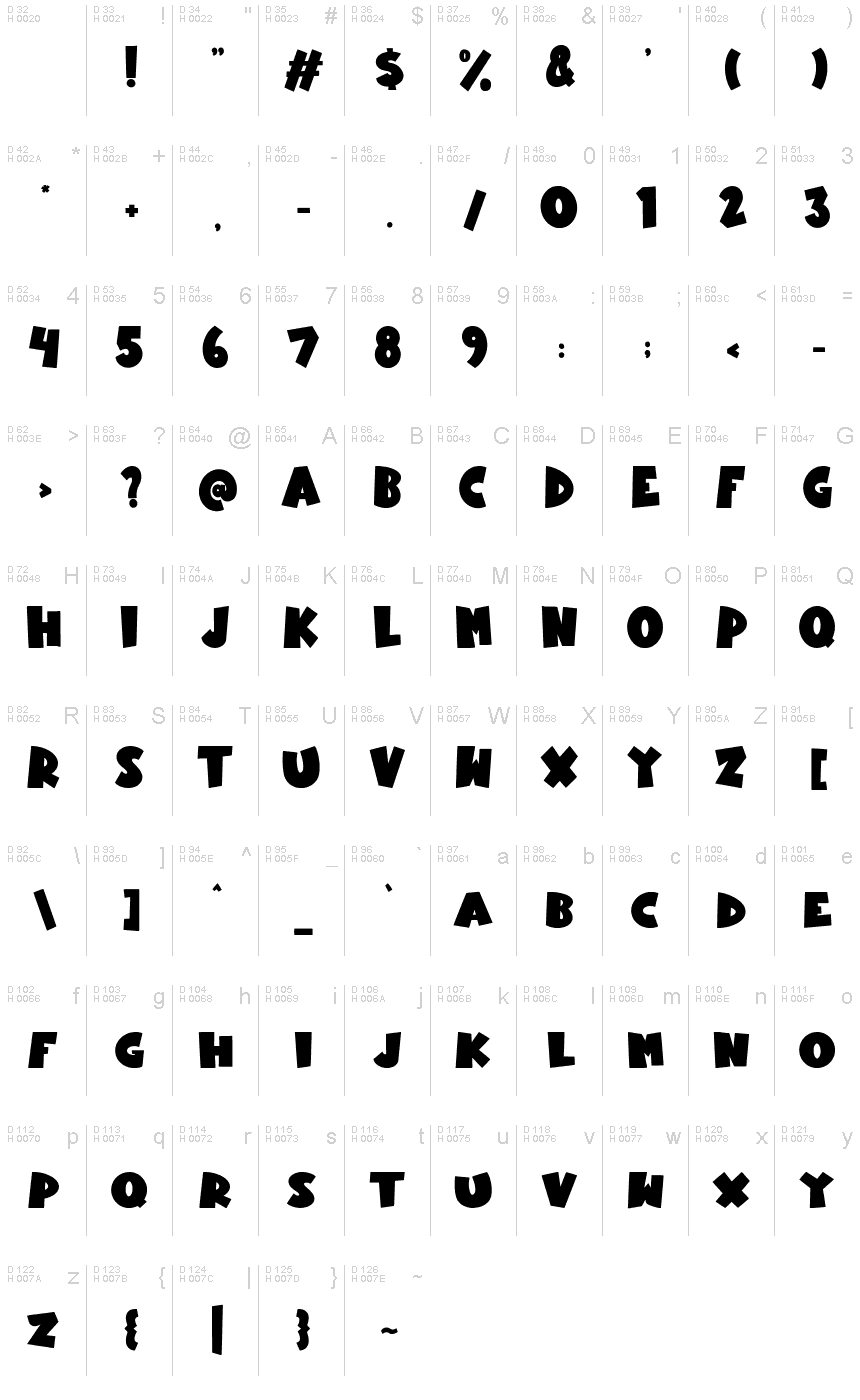
Santa On Duty
Meet Santa On Duty, an inventive and bold display font created by HATF. With its fun cartoon style, this festive font is perfect for creating eye-catching holiday decorations, wrapping paper designs, greeting cards, posters and more!